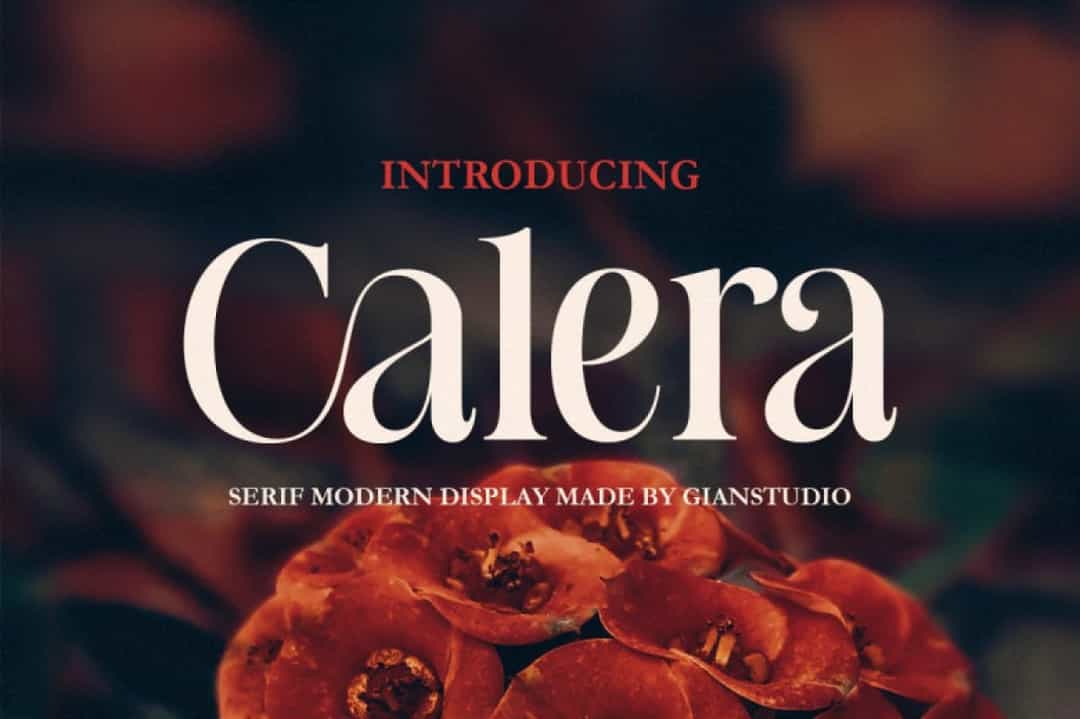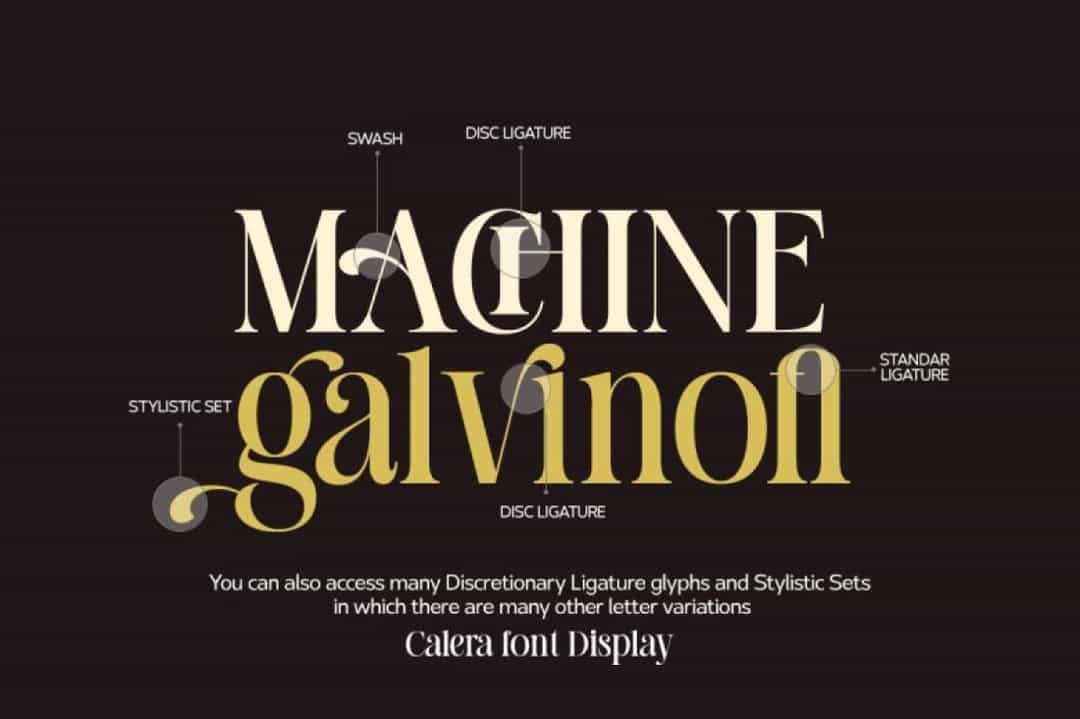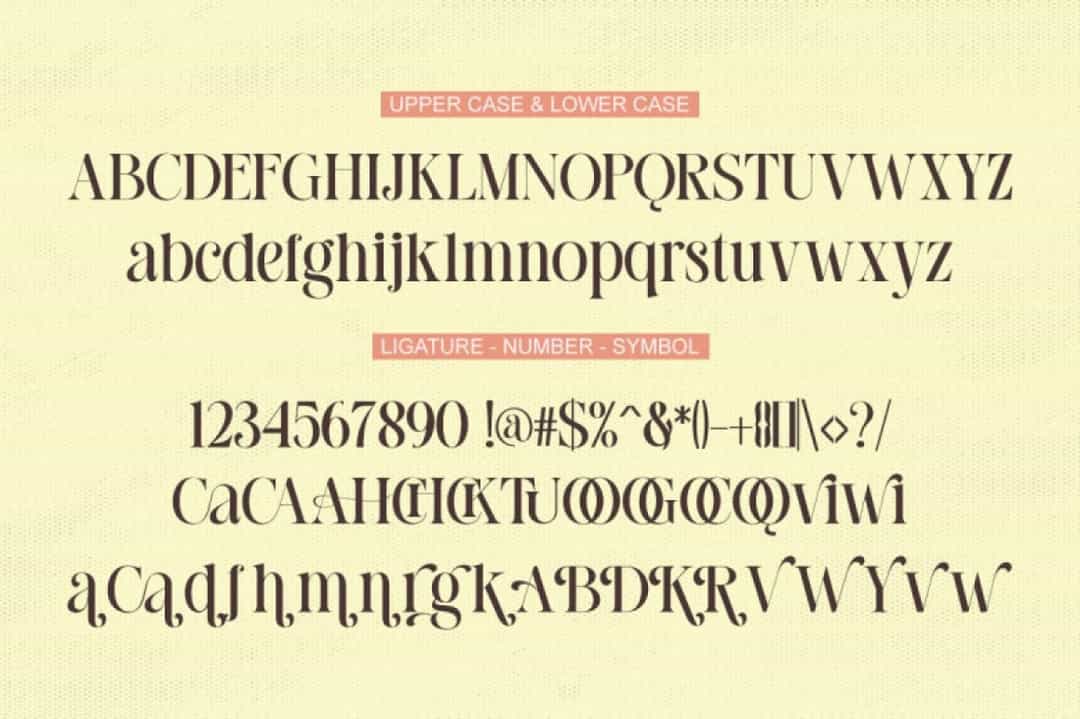
Calera is an exceptionally flexible serif typeface, featuring timeless traditional appeal, more than 12 ligatures and alternatives with multilingual support, incredible precision for any of your projects, and handcrafted letters made with meticulous care! Each letter is meticulously constructed by skilled hands with care taken into making each letter as intricately detailed as possible.